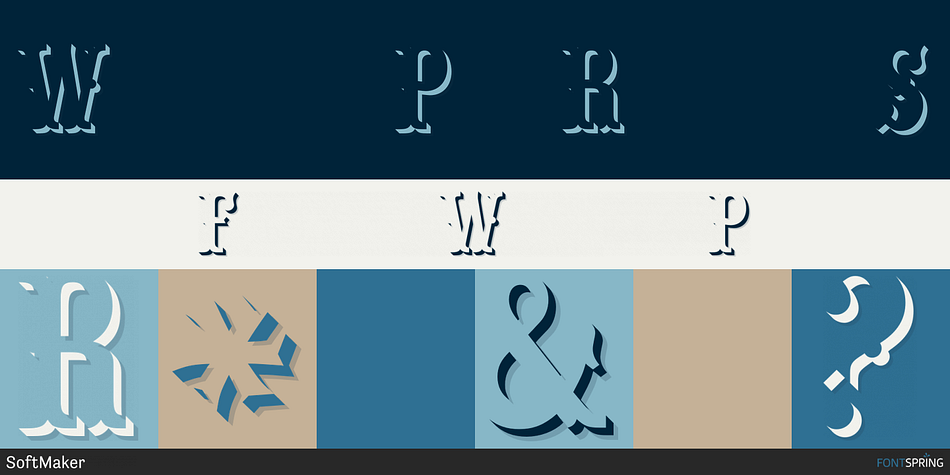
WOODTYPE PRO REGULAR SHADOW
Woodtype Pro is a western and wood type font family. This typeface has two styles and was published by SoftMaker.
Woodtype Pro is a revival of an old classic font used by sign painters and includes the rarely seen lowercase.